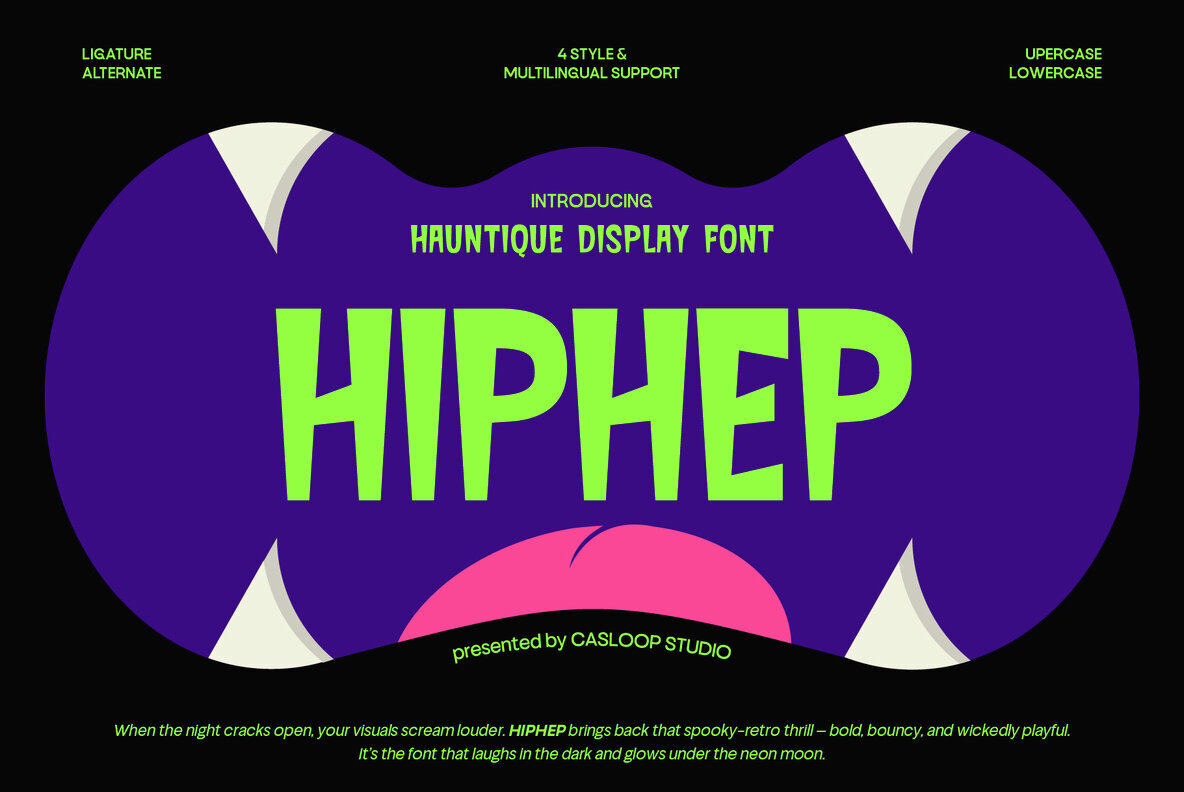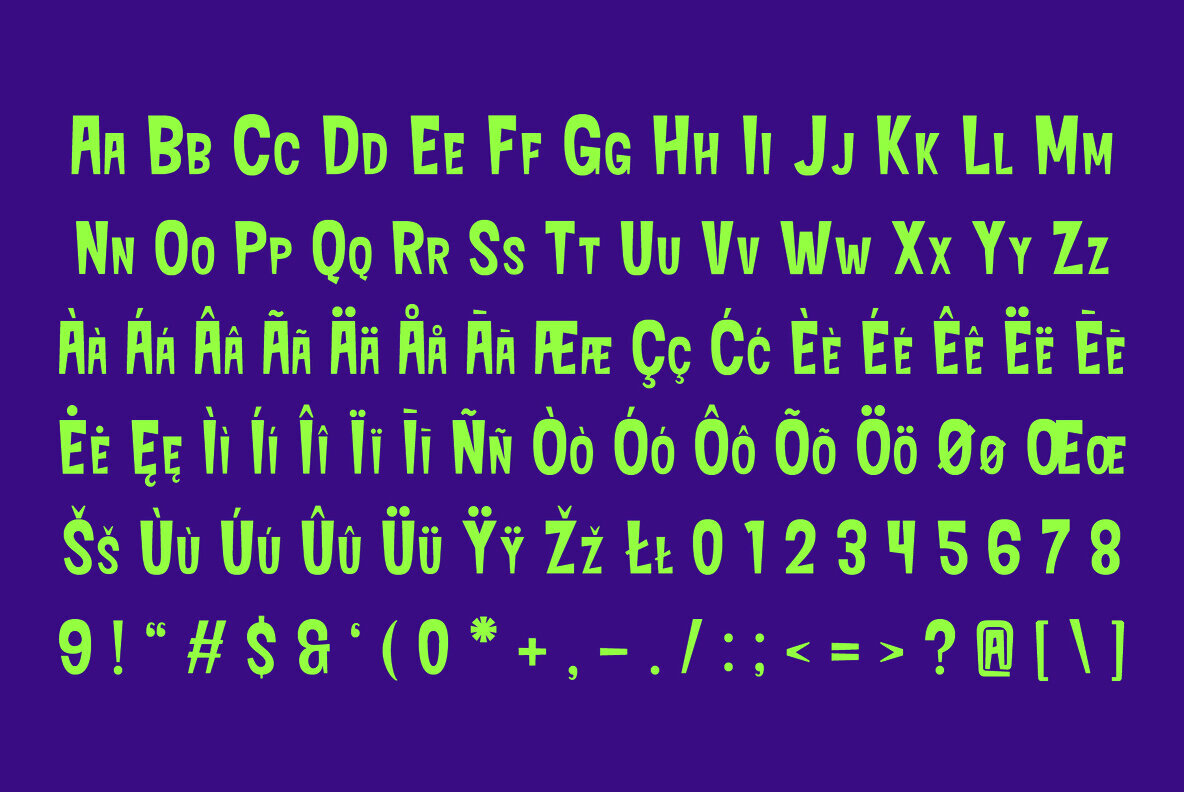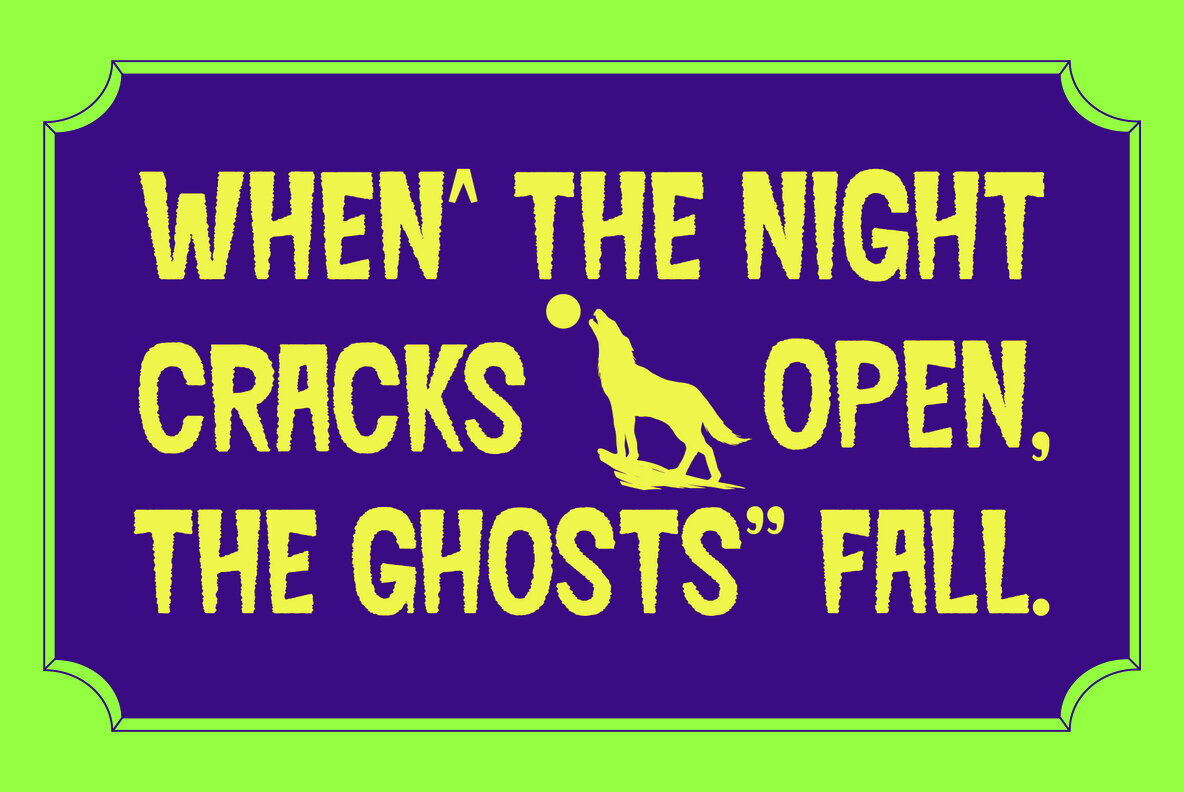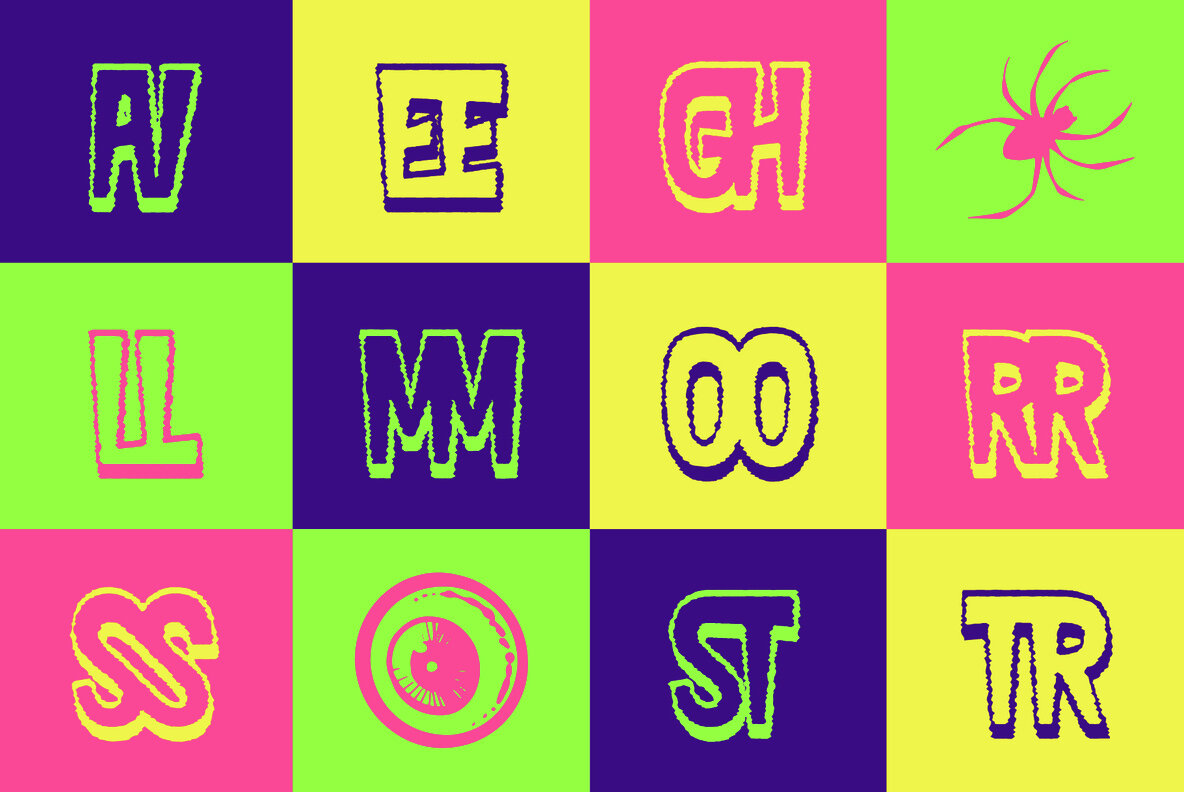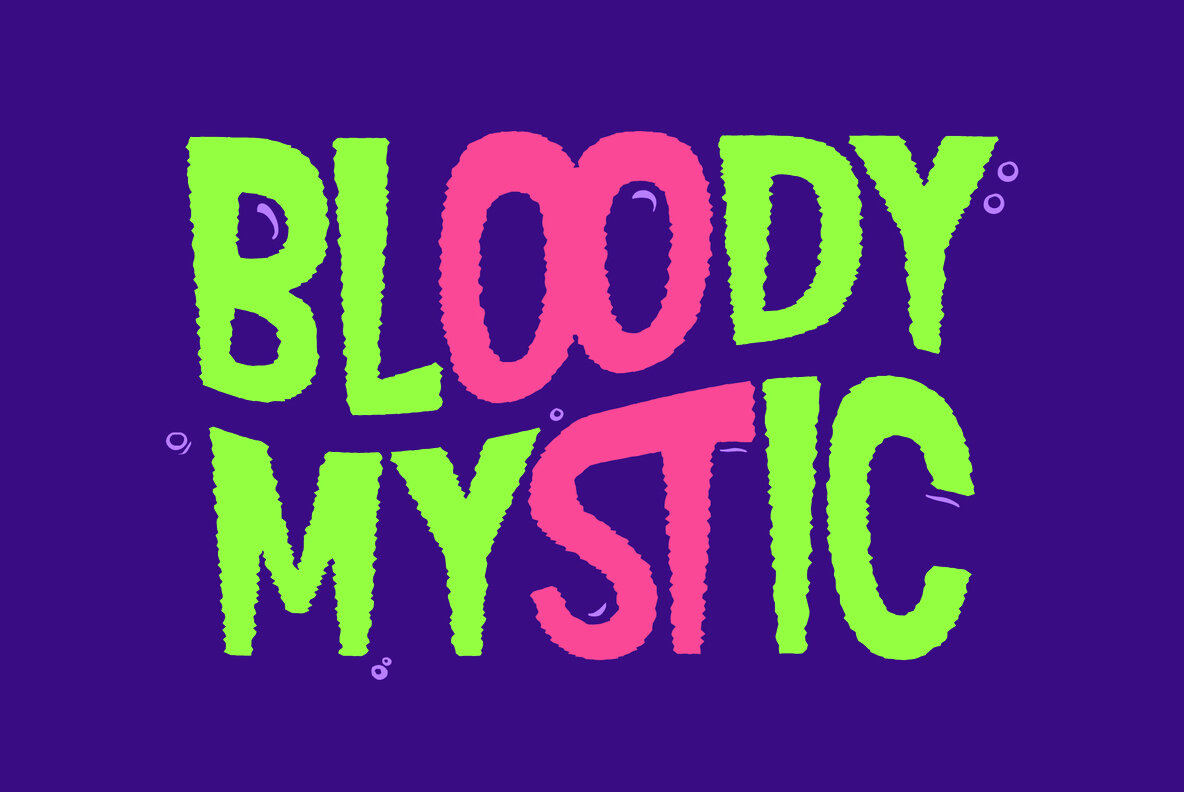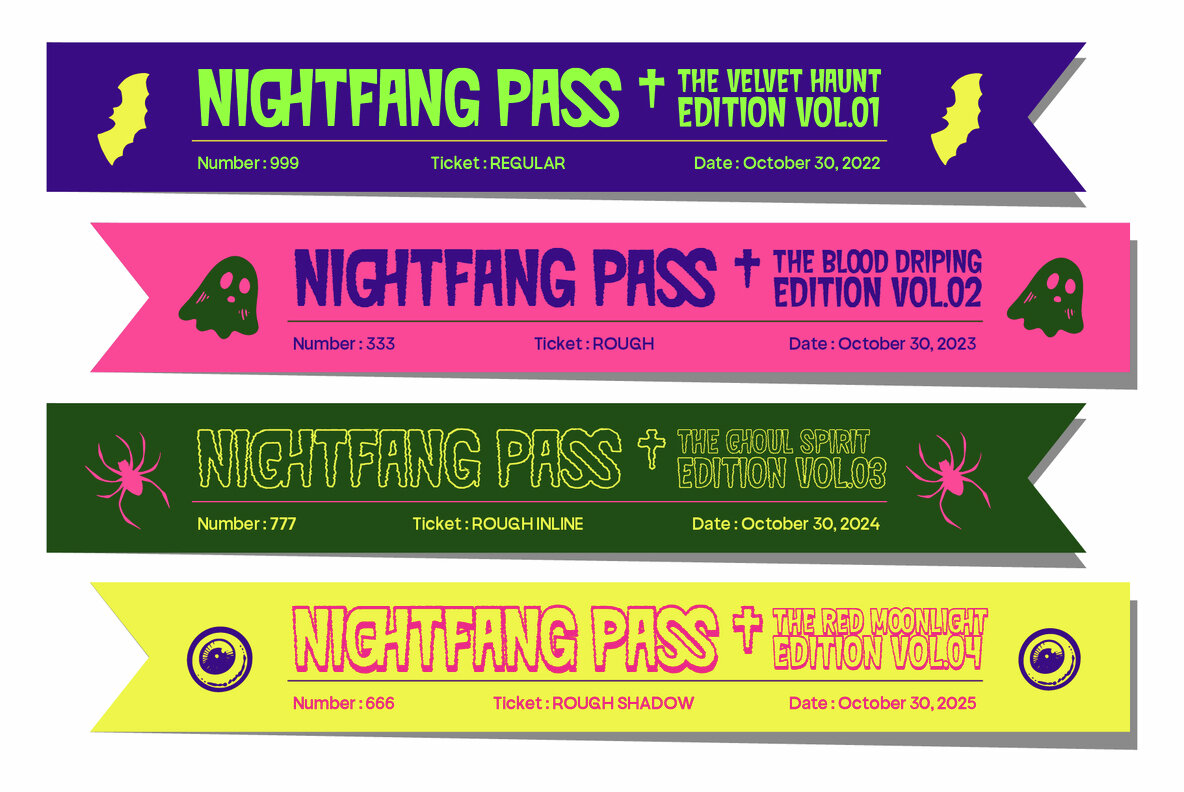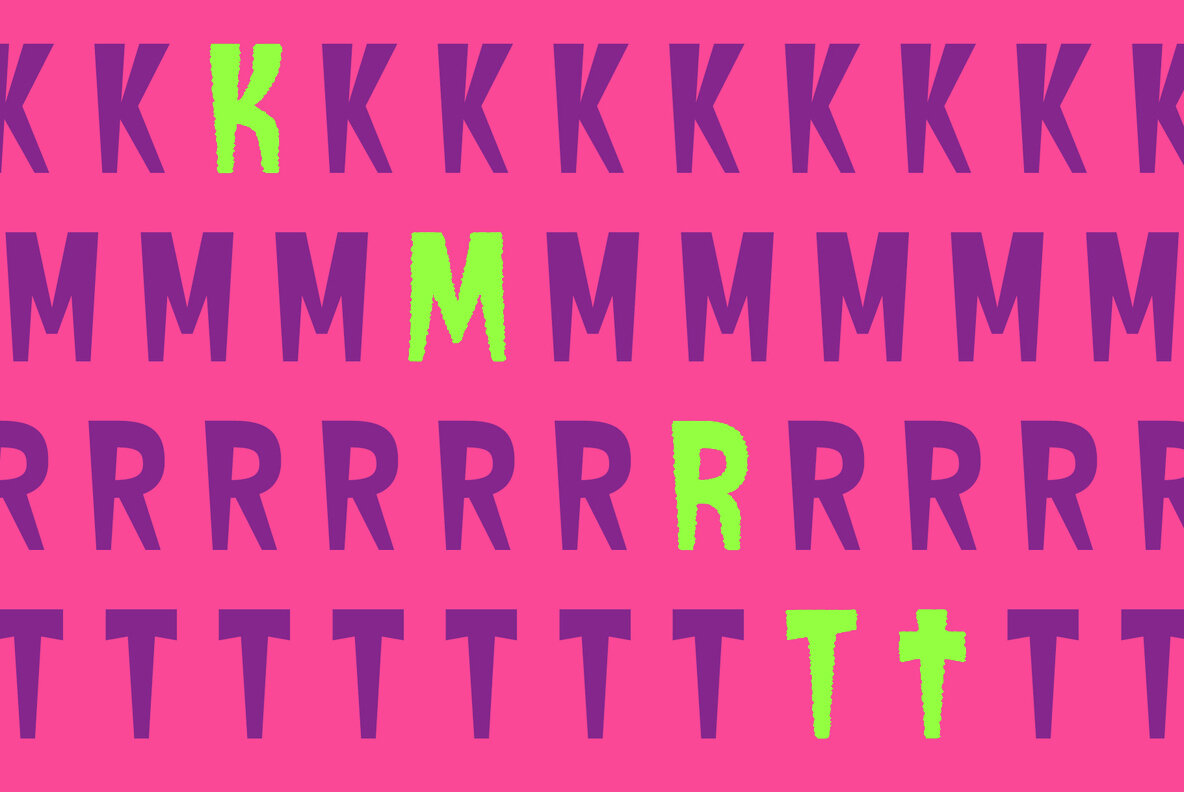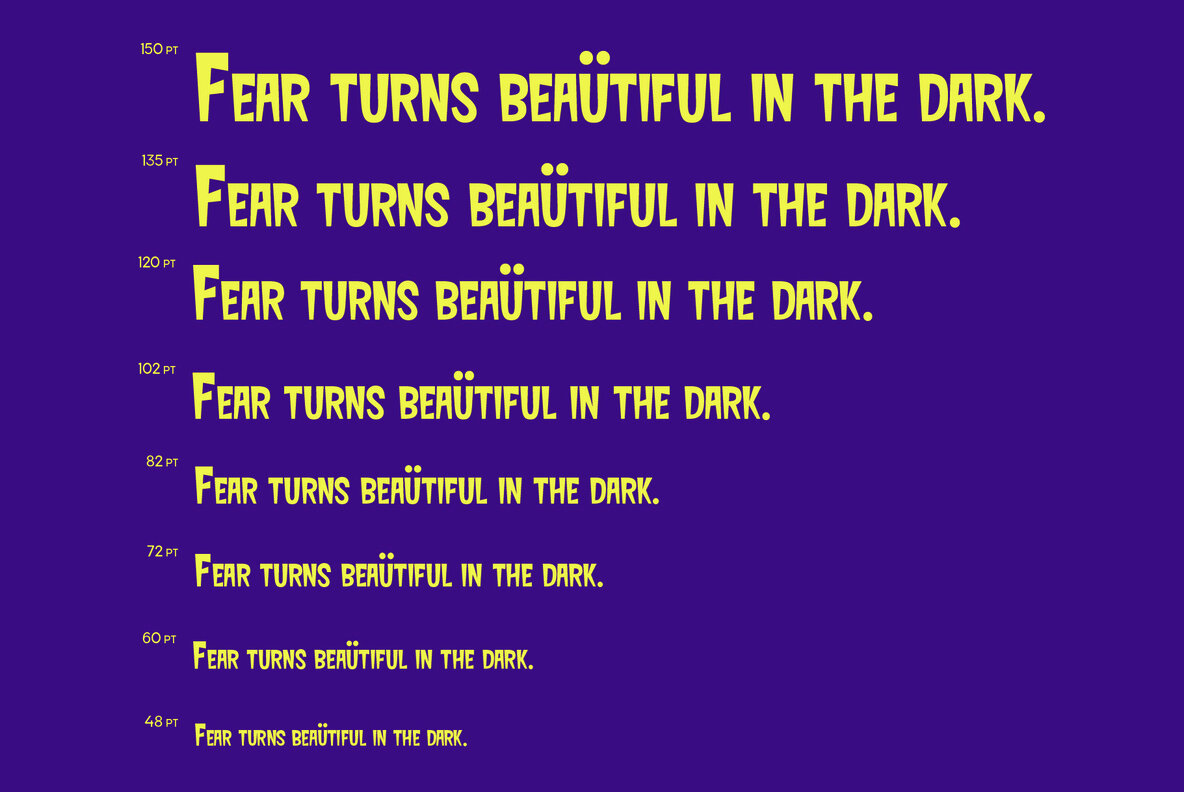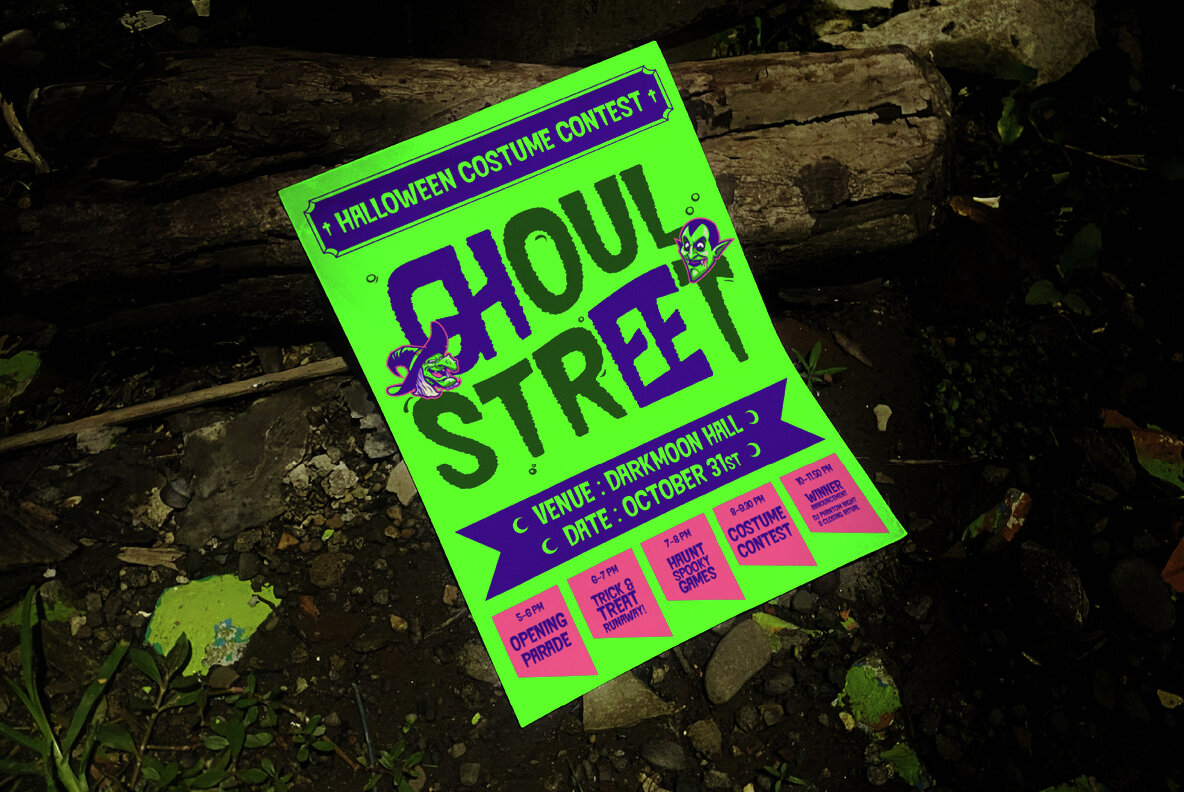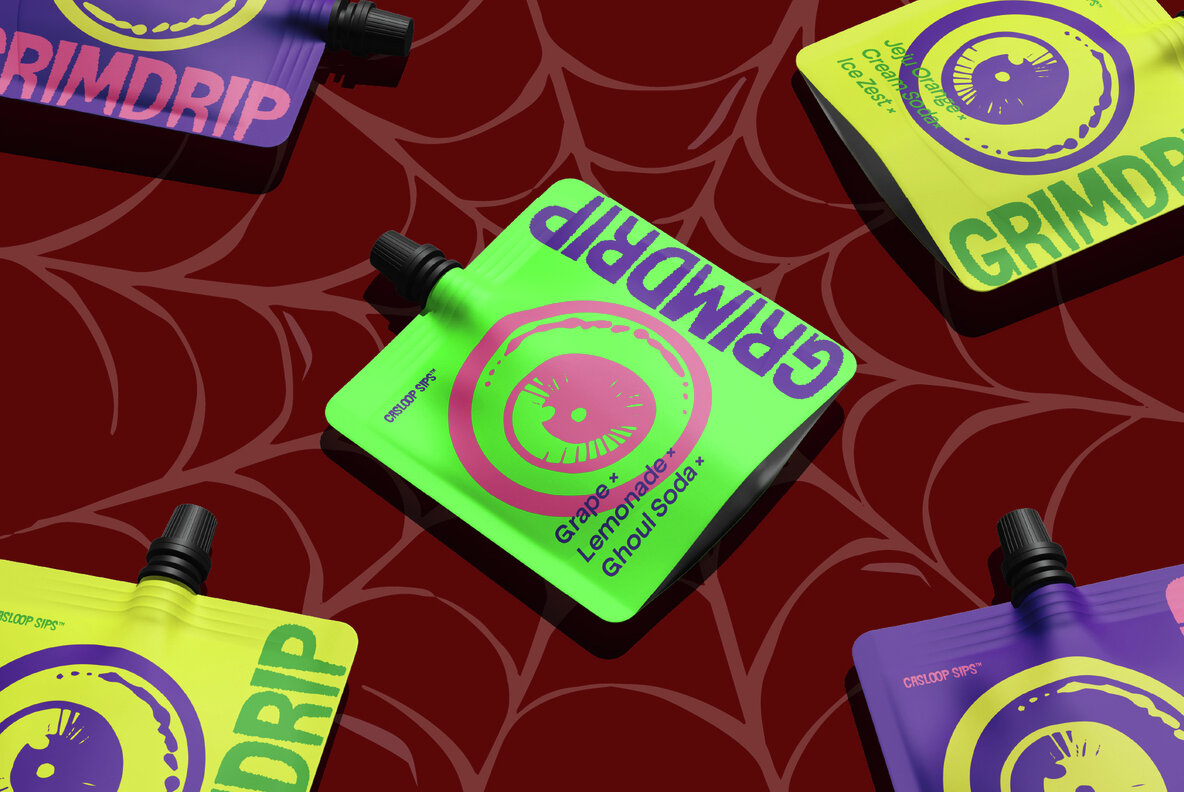
HipHep Font
Hiphep Regular
Hiphep Rough
Hiphep Rough Inline
Hiphep Rough Shadow
HIPHEP exudes a haunted charm, infusing boldness and monstrous energy into your designs. Its rough textures and expressive angles offer a quirky, imperfect look that comes alive like the spirit of trick-or-treating under the moonlit sky. Perfectly balanced between being loud and a tad creepy, HIPHEP is ideal for Halloween-themed visuals, horror branding, and any project craving a touch of chaos. Each letter, especially R, P, and K, boasts unique personalities, resembling mischievous creatures with a cheeky demeanor. HIPHEP's experimental design makes it a standout choice for projects that demand character and emotion, whether it’s for Halloween posters or haunted café branding. This font isn’t just type—it’s an experience that practically grins back at you. Compatible with Adobe Illustrator, Photoshop, Affinity, Figma, Canva, and Kittl, HIPHEP offers four styles: Regular, Rough, Rough Inline, and Rough Shadow, alongside full Variable Font support. Its Multilingual Extended Latin capabilities ensure global readiness, making each headline come to (after)life. From jack-o'-lantern posters to spectral brand marks, HIPHEP promises to haunt your designs with delight.HIPHEP: A Bold Display Font with Spooky Flair